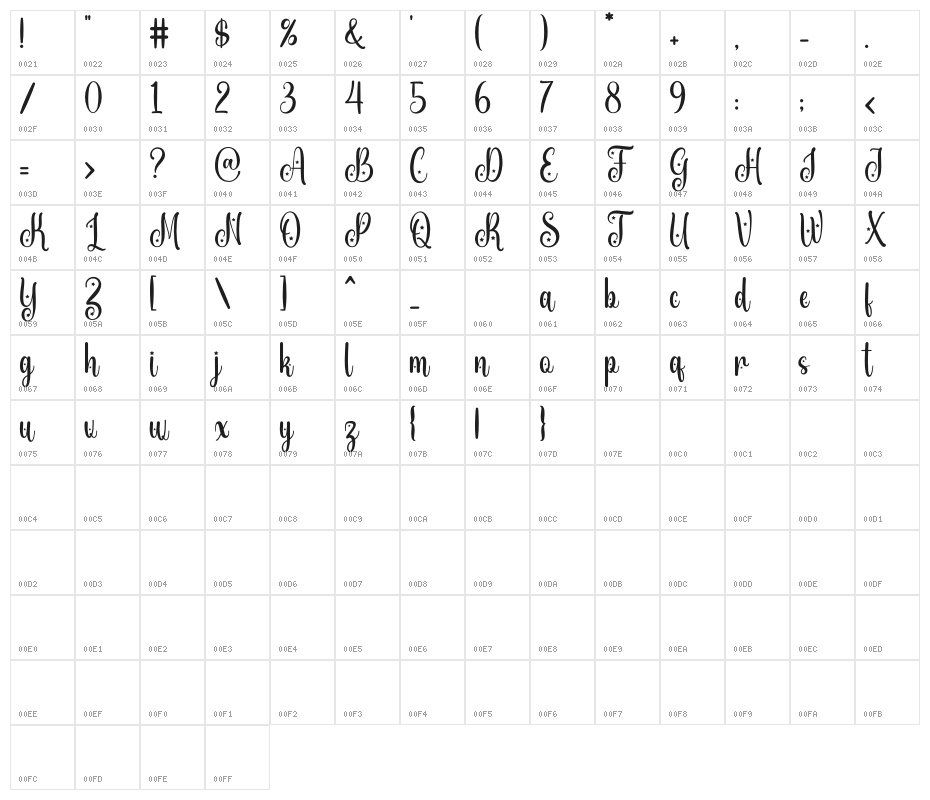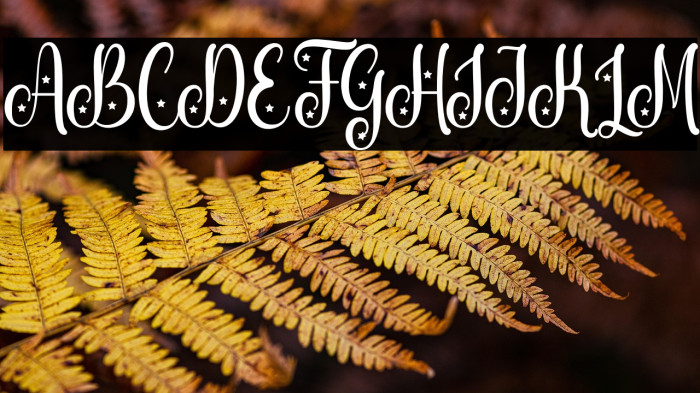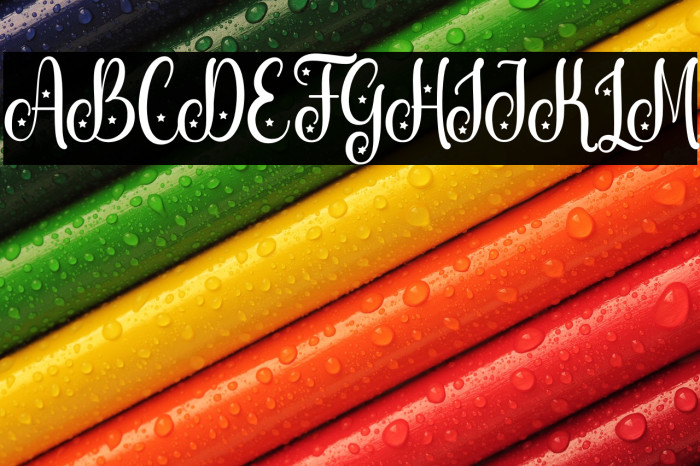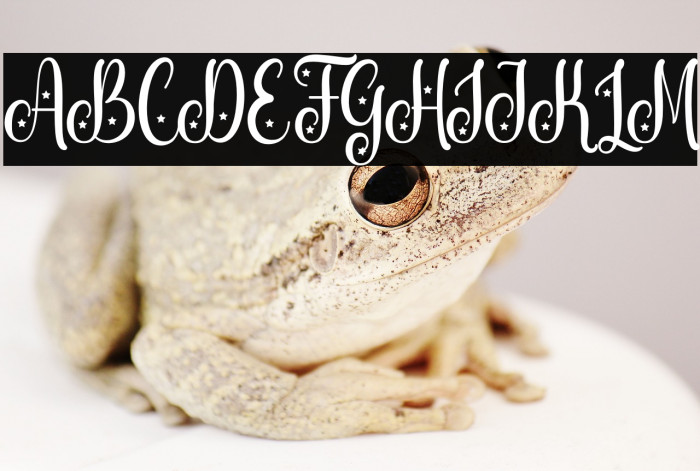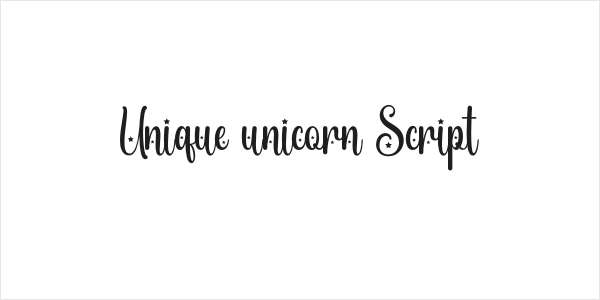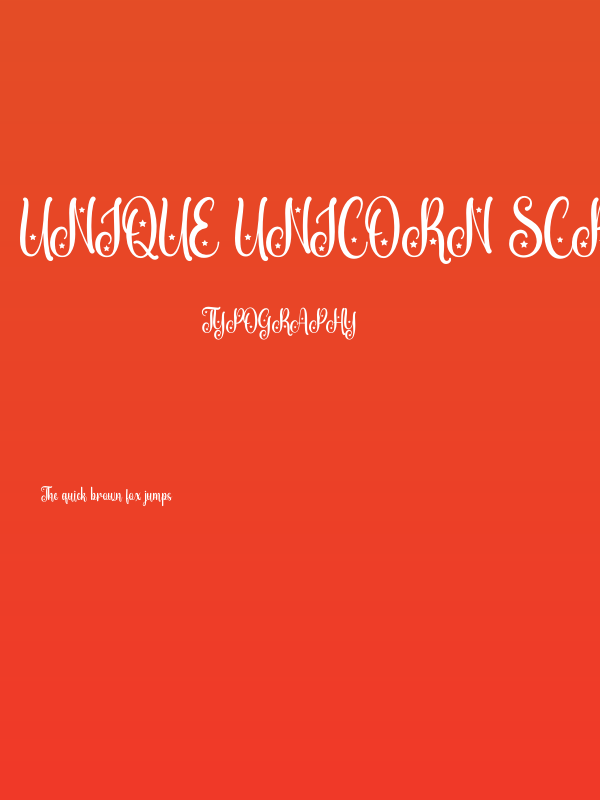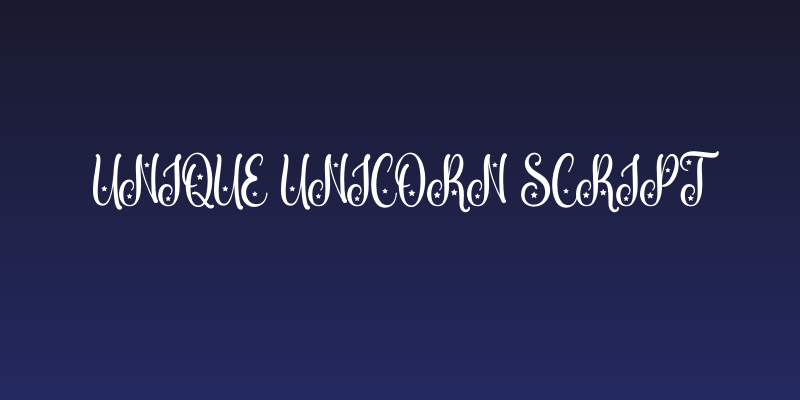
Unique unicorn Script Font
| 使用场景 | Headlines, Logos, Invitations |
| 推荐项目 | Ideal for children's book covers, fantasy-themed invitations, playful branding, and magical event posters. |